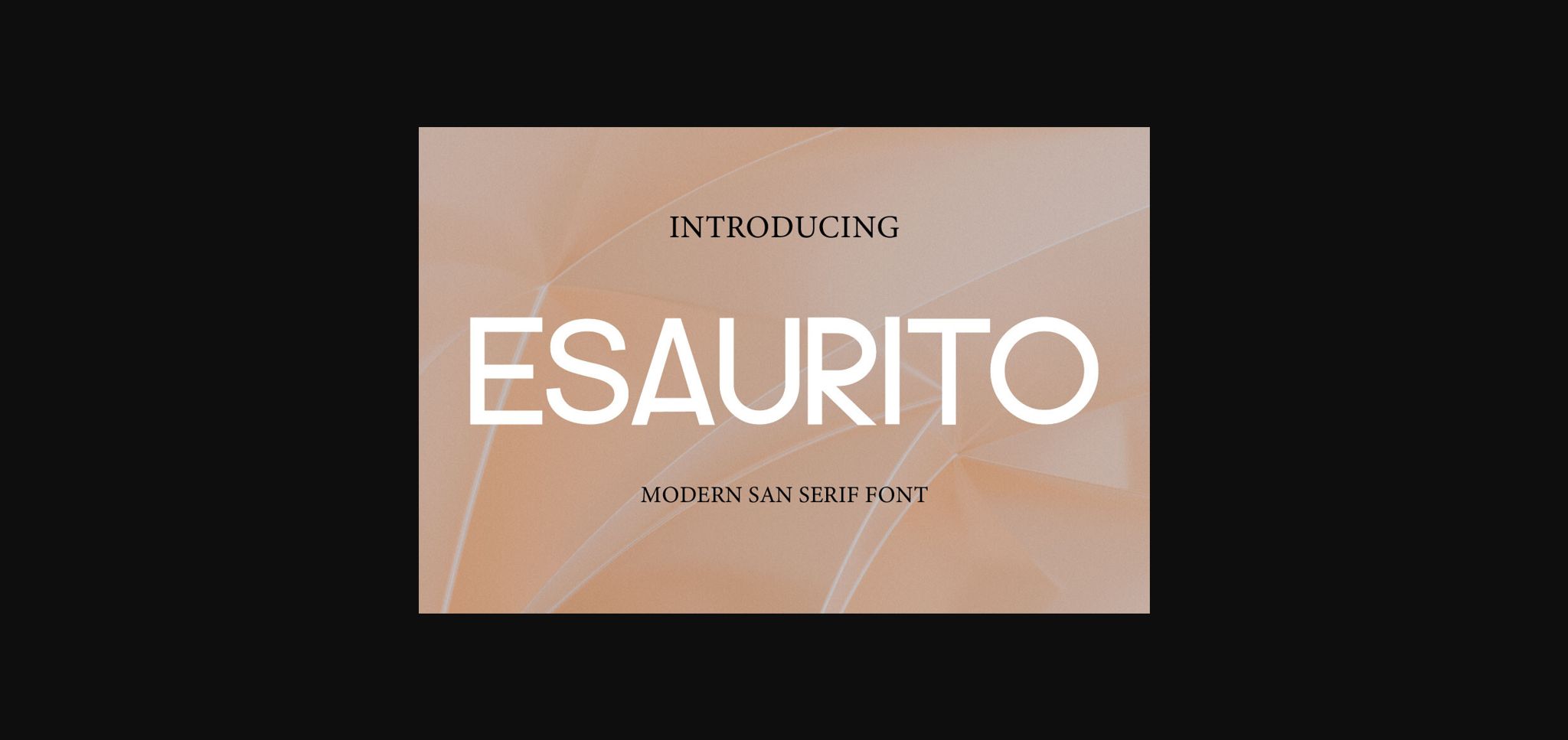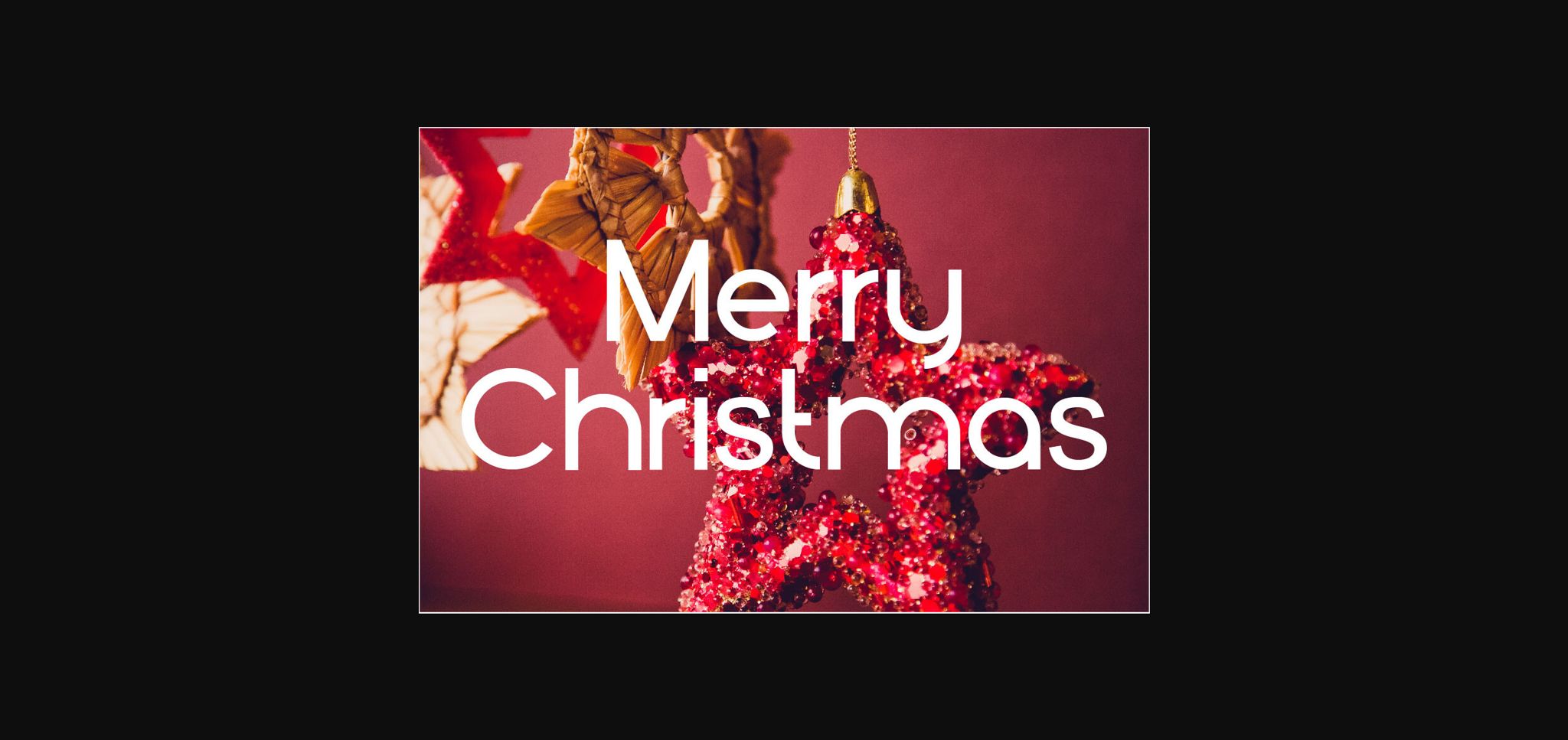
About Esaurito Font
Esaurito Font is an elegant and beautiful sans serif typeface manufactured by Gunaloecraft. This font is ideally suited for a wide variety of projects, such as signature, stationery, logo, wedding, typography quotes, magazine or book covers, website headers, clothing, branding, packaging design, and more. Also, fashion-related branding or editorial design displays both masculine and feminine qualities.
– Alternate glyphs, Ligatures